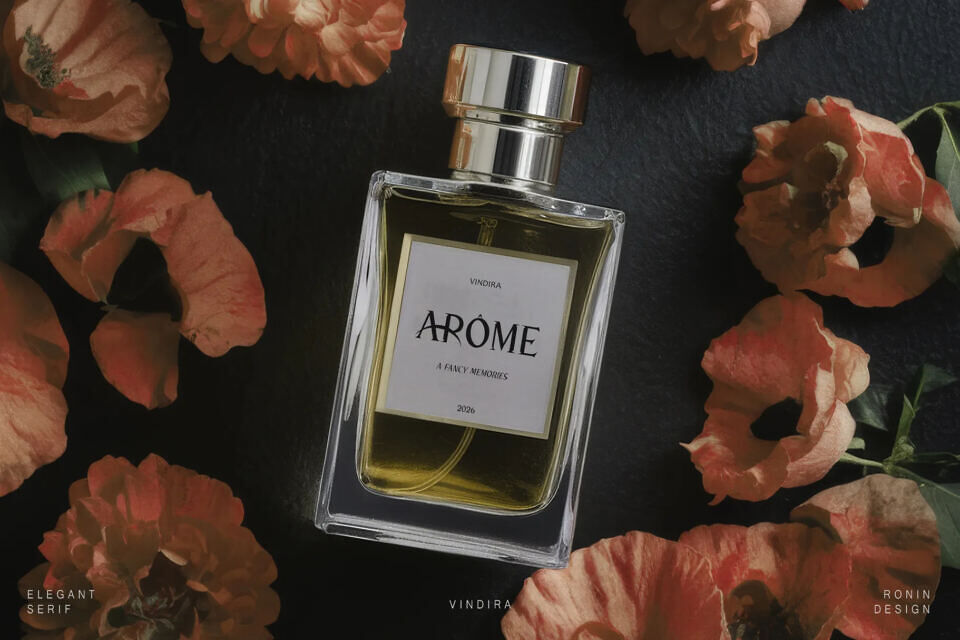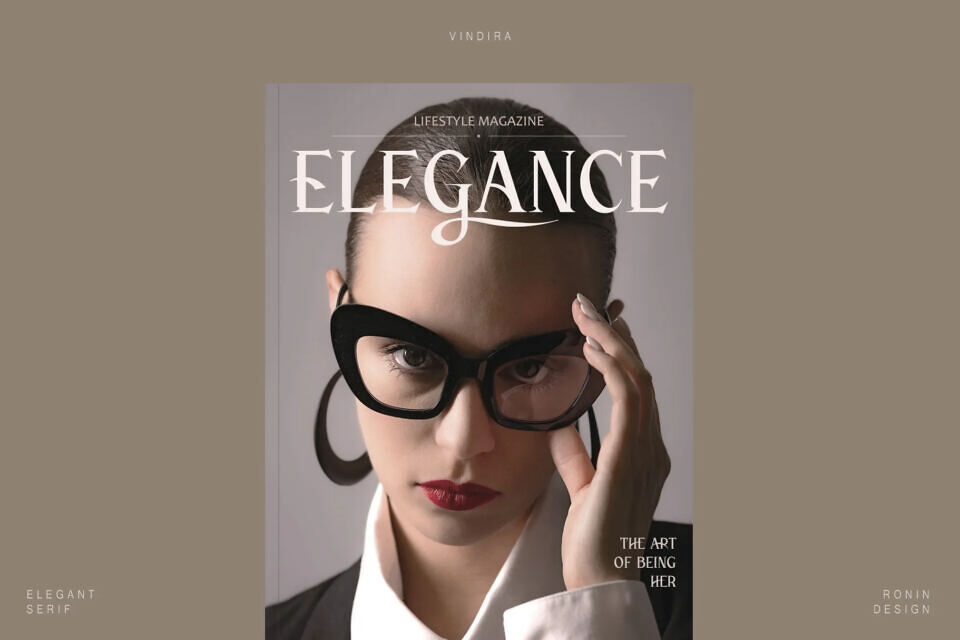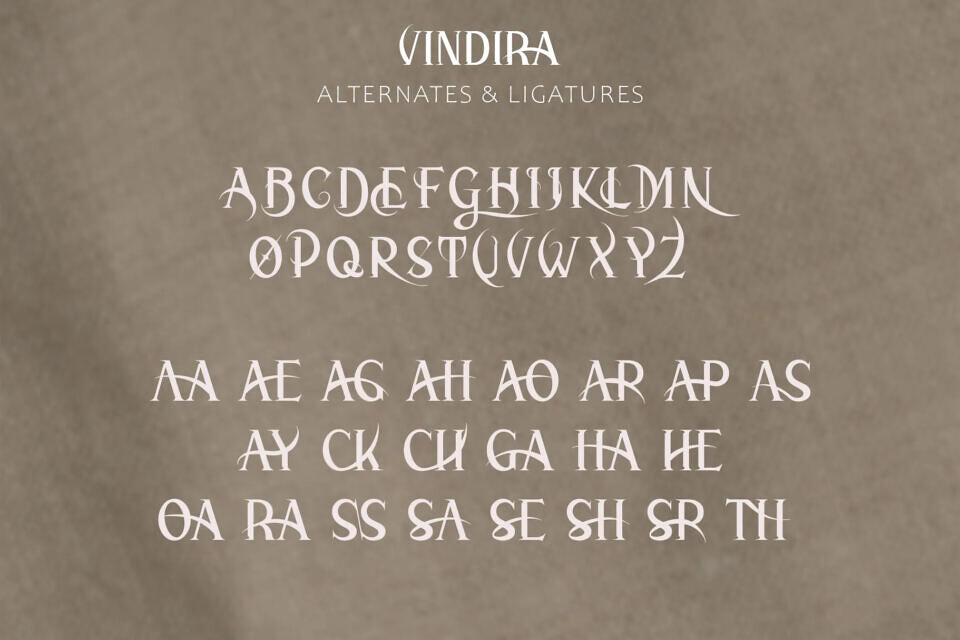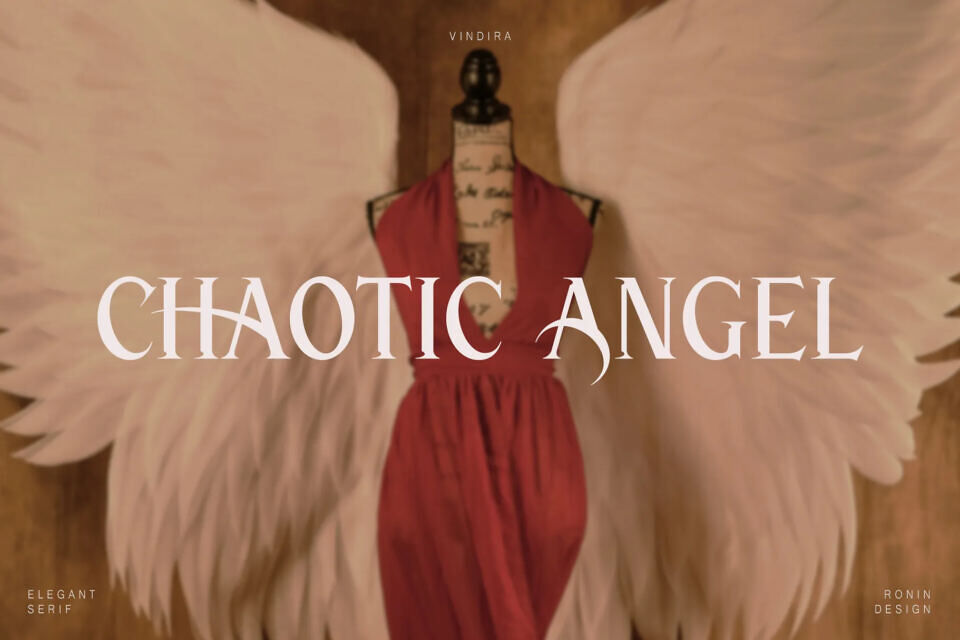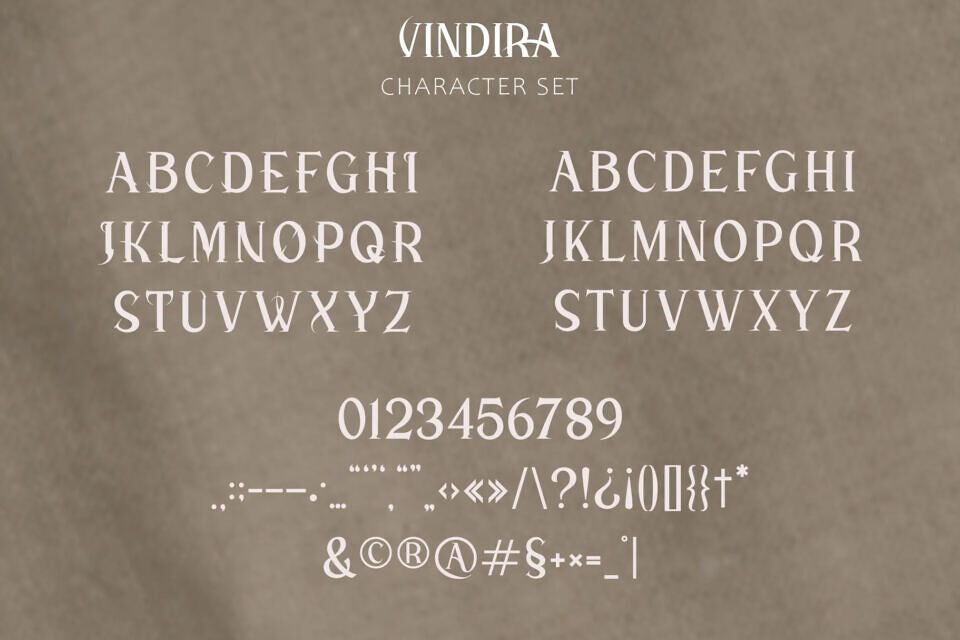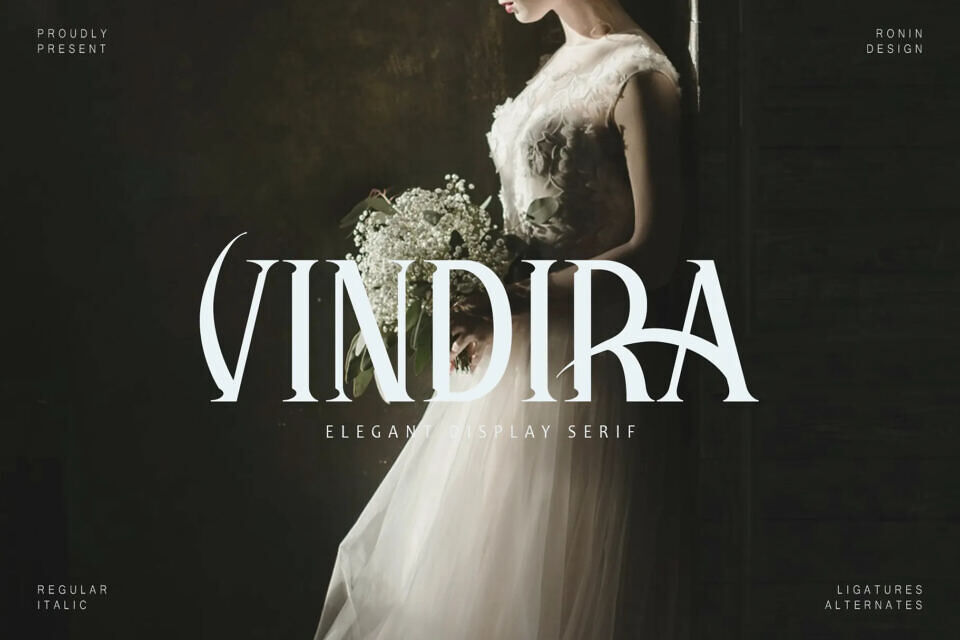
Vindira Font
Vindira is an elegant display serif designed to bring elegance and emotion into modern design. With its romantic tone and timeless character, Vindira instantly elevates headlines, logos, and visual storytelling.
Perfect for luxury branding, wedding designs, fashion editorials, book covers, and artistic quotes, Vindira delivers a graceful yet bold presence that feels cinematic and refined. Its expressive details and stylish alternates make every word feel intentional and memorable. Vindira is made for designers who want their typography to feel beautiful, dramatic, and unforgettable.